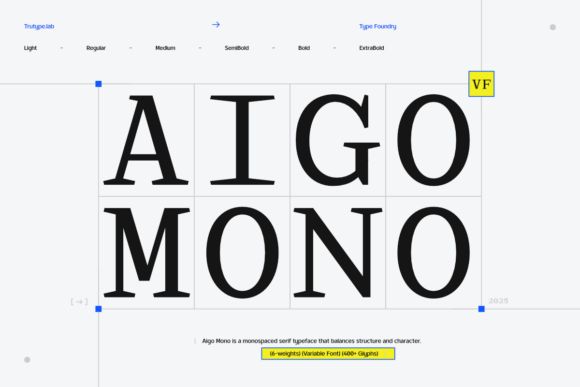
The Designer’s Delight: Aigo Mono Font
I still remember the frustration of working on a project, pouring my heart and soul into the design, only to get stuck on one thing: finding the perfect font. My client wanted something that exuded precision, consistency, and a touch of warmth. I scoured the internet, tried out countless fonts, but nothing seemed to fit the bill. That was until I stumbled upon Aigo Mono. ✨
This monospace serif typeface has been a game-changer for me, and I’m excited to share my experience with you. Aigo Mono is built around structure, rhythm, and typographic discipline, making it perfect for designers who value precision and consistency.
A Honest Review: The Good and the Not-So-Good
• ✨ Consistent grid: Aigo Mono’s equal-width letterforms establish a consistent grid that brings clarity and order to complex layouts.
• ✅ Legibility: The serif details introduce a subtle sense of character and warmth, softening the rigid nature of monospace typography without compromising legibility.
• 💡 Multiple weights: Carefully balanced proportions and multiple weights allow Aigo Mono to perform across editorial layouts, interfaces, and experimental compositions.
• 🤔 Limited use in body text: Aigo Mono’s monospace nature can make it less suitable for long-form body text. ⚠️
• ⚠️ Some glyphs may require manual adjustment: Depending on the layout, some glyphs may require manual adjustment to ensure optimal spacing.
Aigo Mono was designed with the goal of creating a font that embodies precision, consistency, and a touch of warmth. The designer’s inspiration came from the world of systems-driven design, where clarity and legibility are paramount. By combining the structure and rhythm of monospace typography with the elegance of serif details, Aigo Mono offers a unique voice that is both functional and expressive.
What is Aigo Mono? Aigo Mono is a monospace serif typeface designed for precision, consistency, and legibility.
Is Aigo Mono suitable for body text? While Aigo Mono can be used for body text, its monospace nature may make it less suitable for long-form reading. It’s best used for headings, titles, and short-form text.
Can I use Aigo Mono for coding and programming? Yes, Aigo Mono’s monospace nature and clear letterforms make it suitable for coding and programming.
Is Aigo Mono available in multiple weights? Yes, Aigo Mono comes in multiple weights, allowing you to use it for a range of design applications.